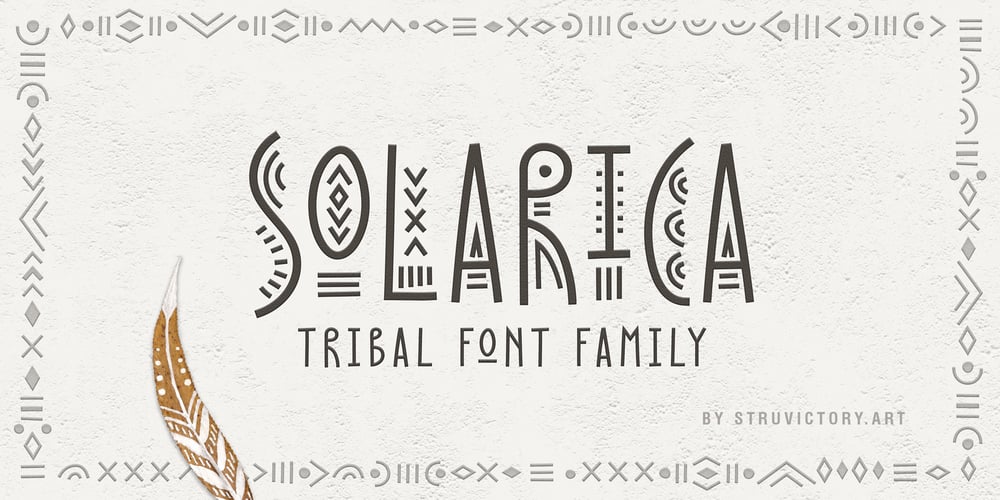
Solarica Font Family was designed by Viktoryia Strukouskaya, Viktor Strukouski and published by Struvictory.art. Solarica contains 3 styles and family package options. Solarica is a linear font decorated with tribal patterns. The typeface includes Decorative, Regular and Symbol versions. Combine fonts with each other to get a unique design! Solarica is suitable for lettering posters and cards, tourist brochures, photo overlays, music album and book covers. The font works great both for printing, clothes and craft products, branding and packaging (herbal tea, handmade soap, organic food). Also use individual letters to create logos and monograms.